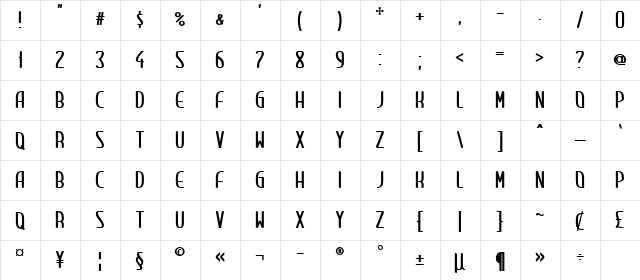
ft19 Condensed Regular
Design Context for ft19 Typeface
ft19 offers clean, dependable letterforms without strong stylistic allegiance, making it a practical choice for designers who need flexibility. The condensed width makes it efficient for tight spaces without sacrificing legibility.